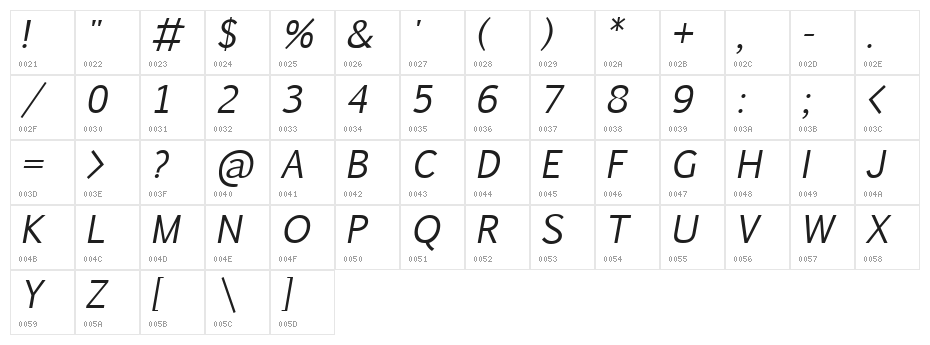
Pigiarniq Italic Font
Pigiarniq Italic Description
This font features a sleek and modern italic style with clean lines and a subtle slant, giving it a dynamic and elegant appearance. The characters are well-proportioned, with a consistent stroke width that maintains readability while adding a touch of sophistication. The uppercase letters are bold and assertive, while the lowercase letters offer a softer, more approachable feel. The numerals are clear and distinct, making them suitable for a variety of applications. Special characters are thoughtfully designed to complement the overall aesthetic, ensuring versatility in usage.
| Proposed Projects | Ideal for branding, editorial design, advertising, and digital interfaces where a modern and elegant touch is desired. |